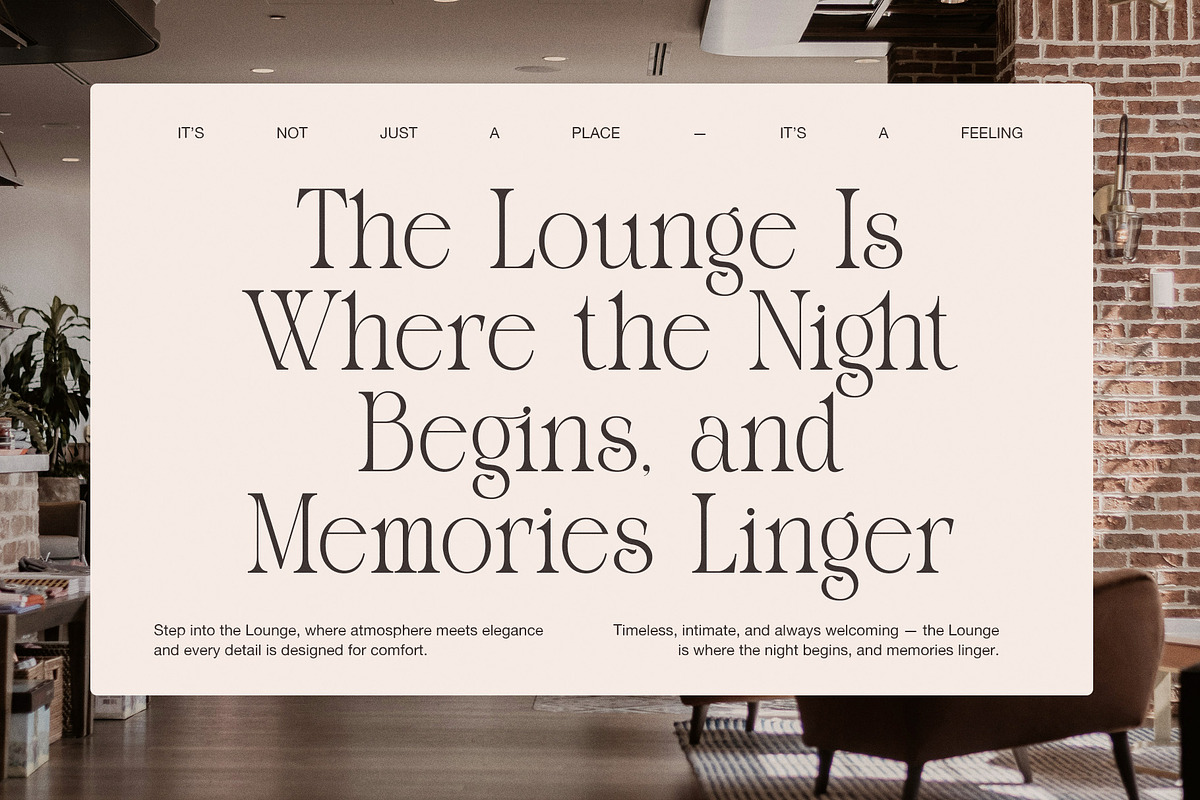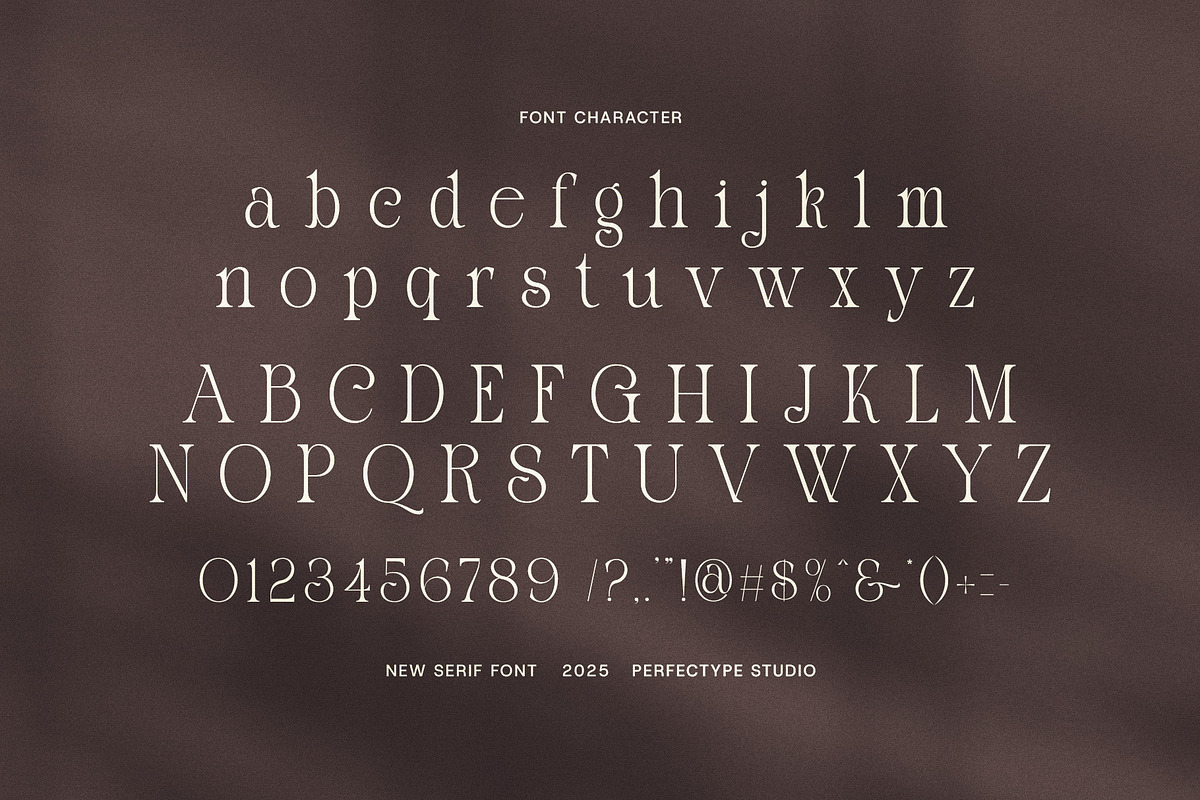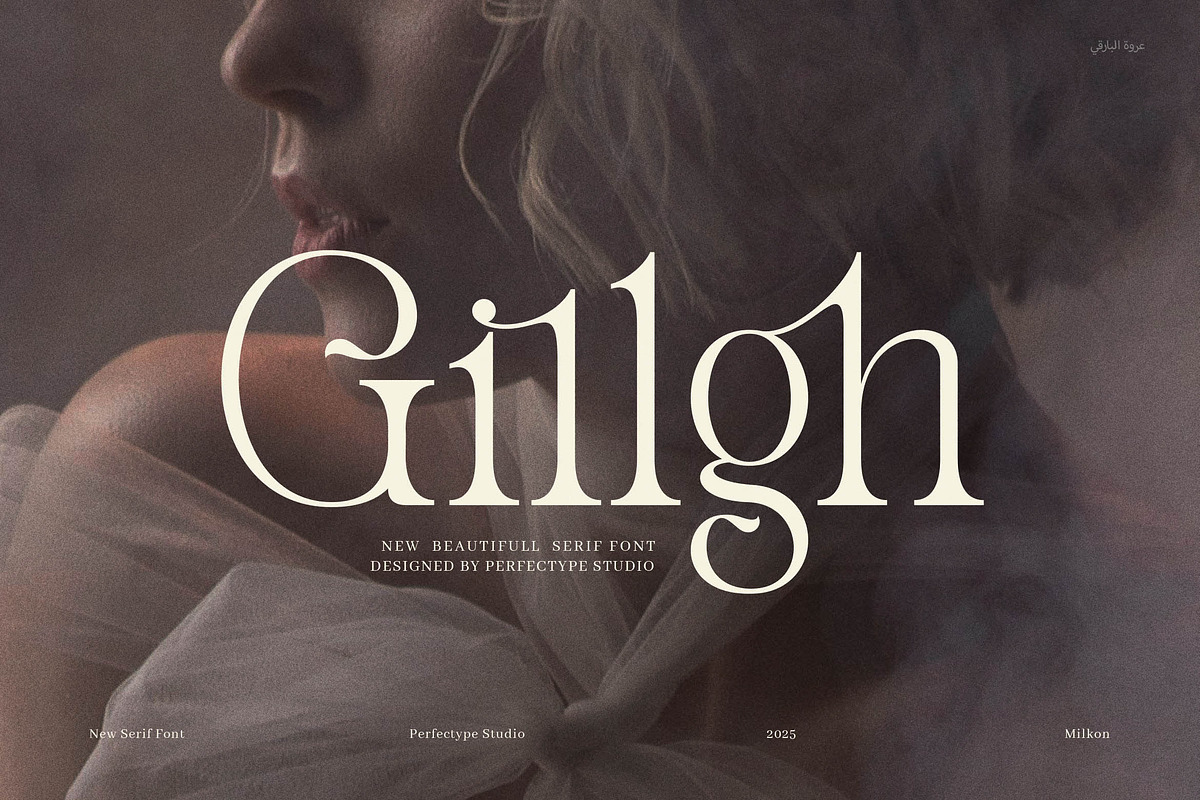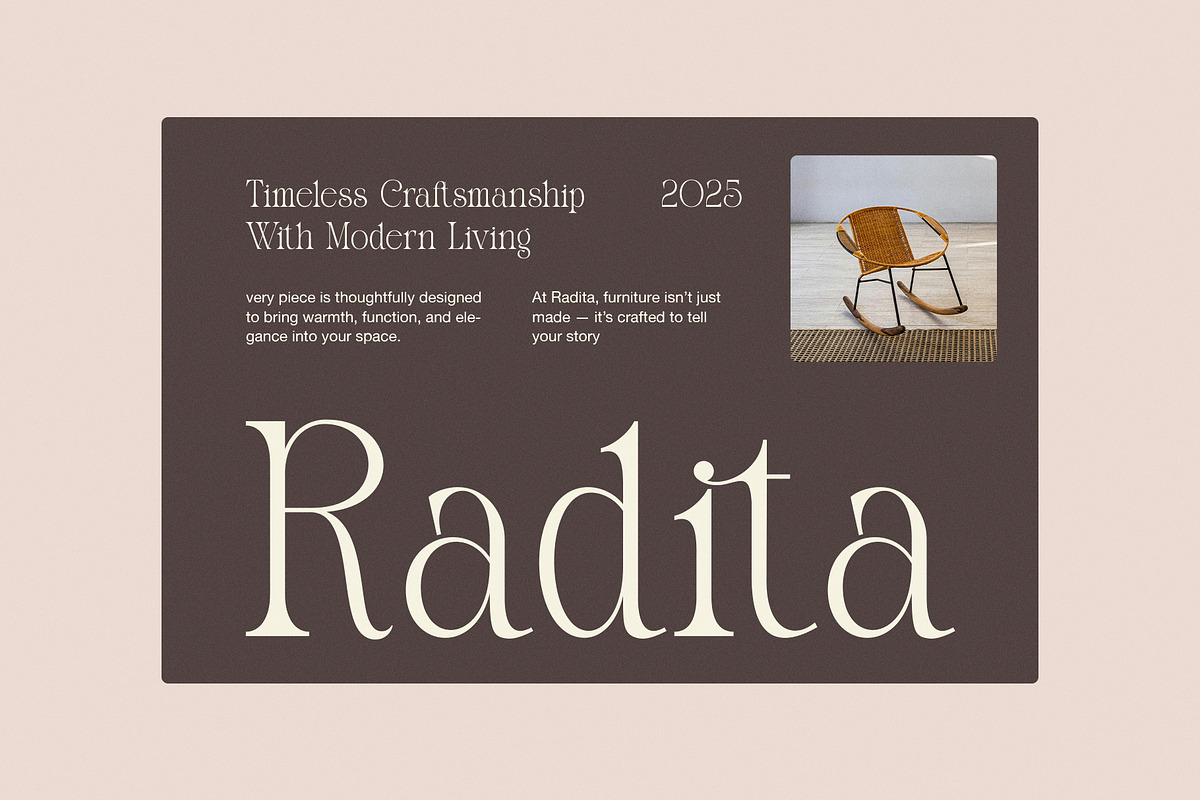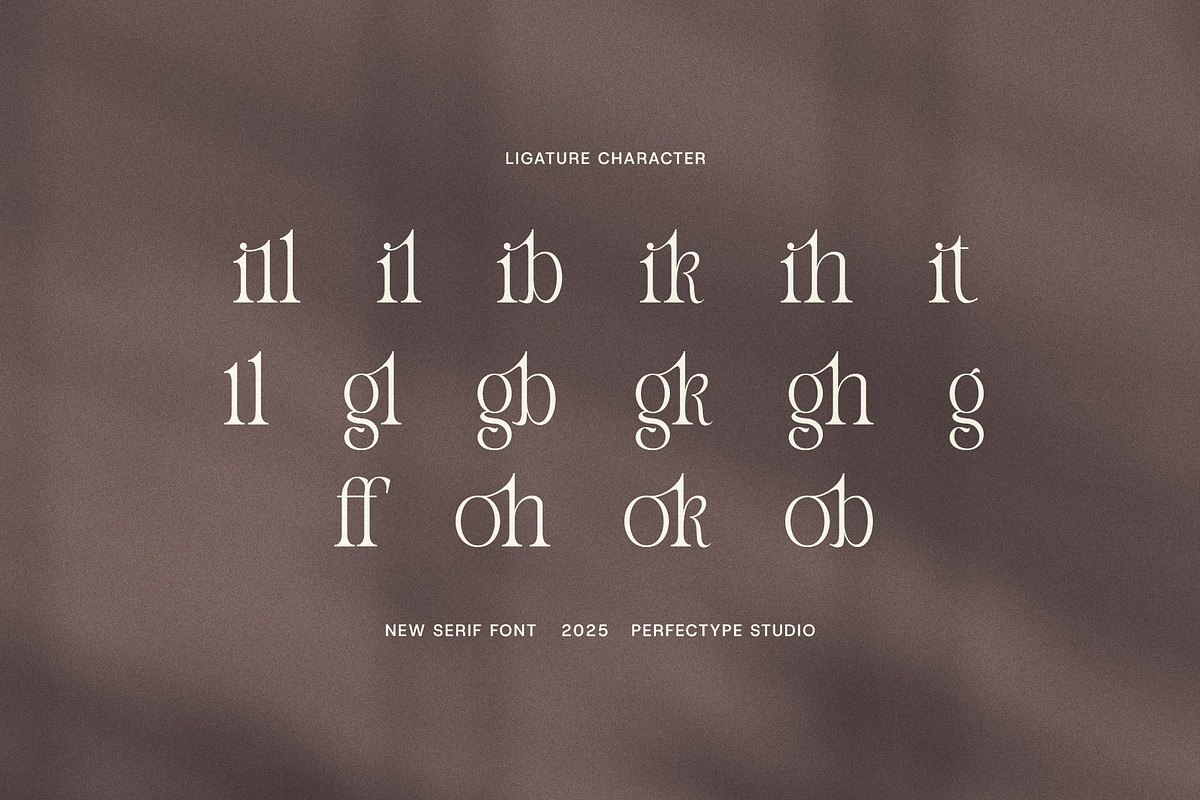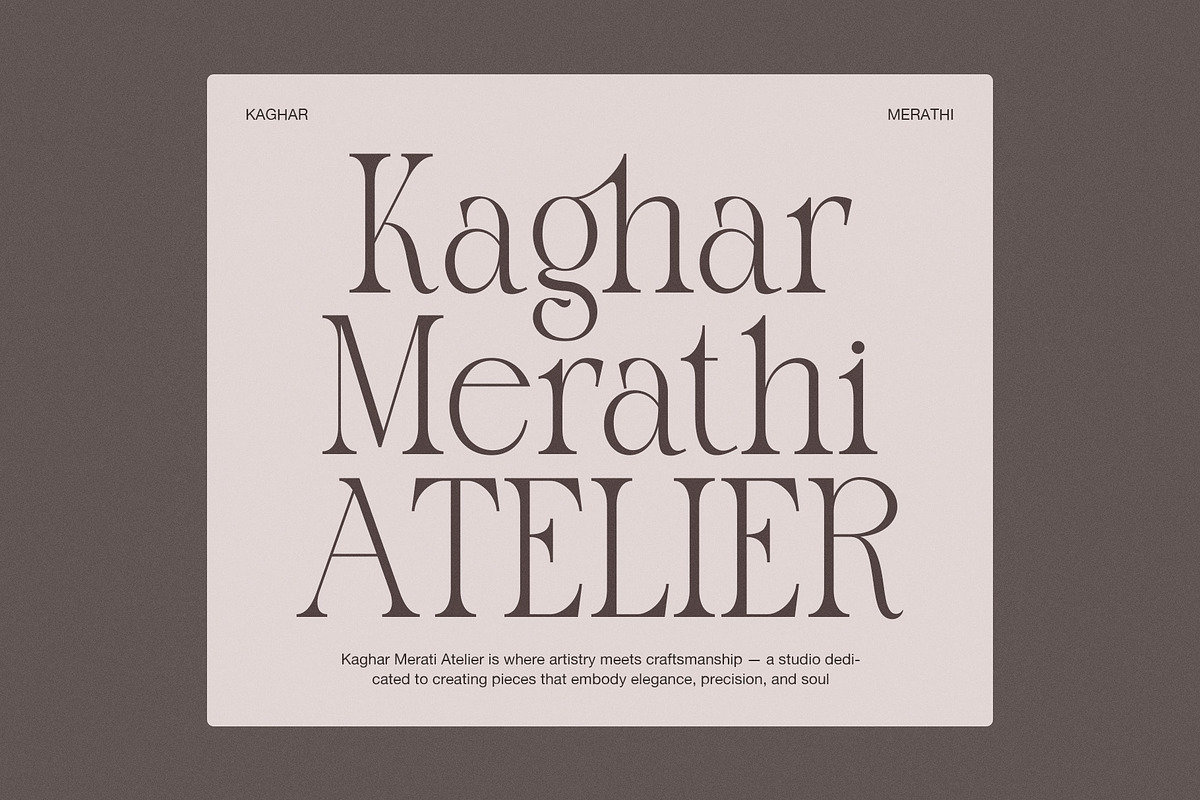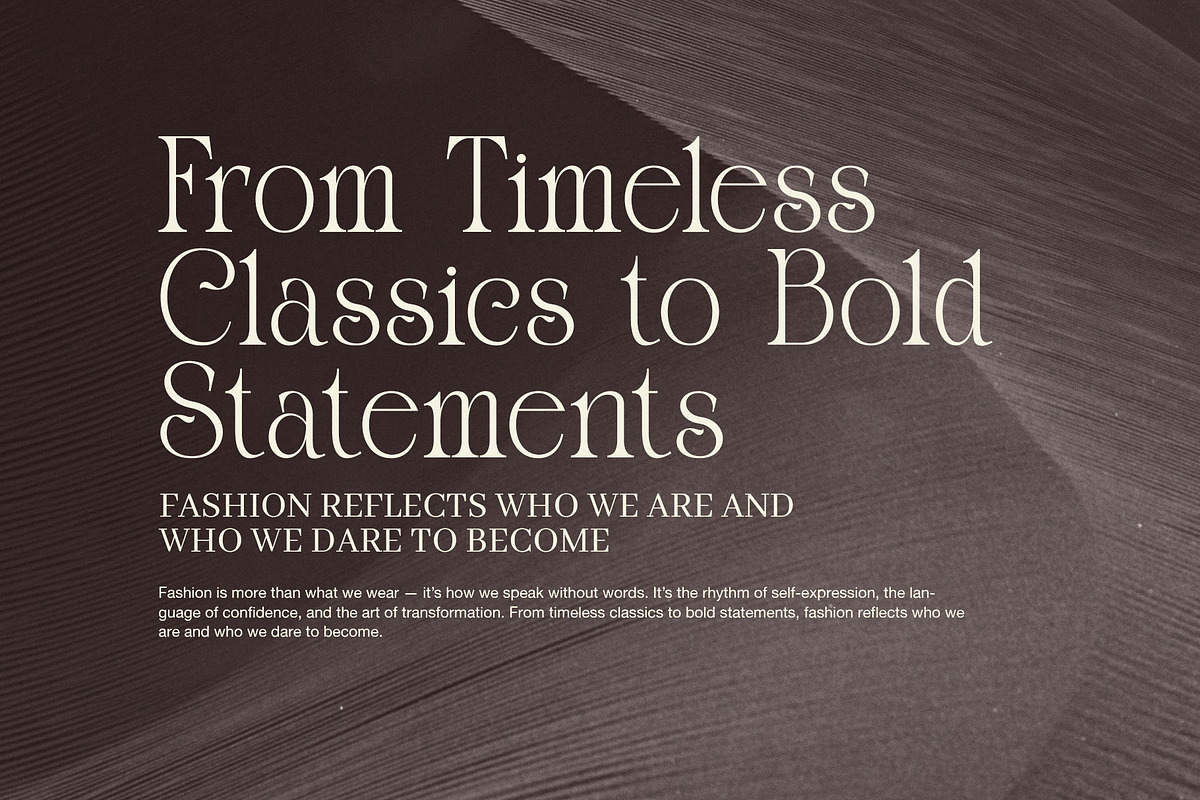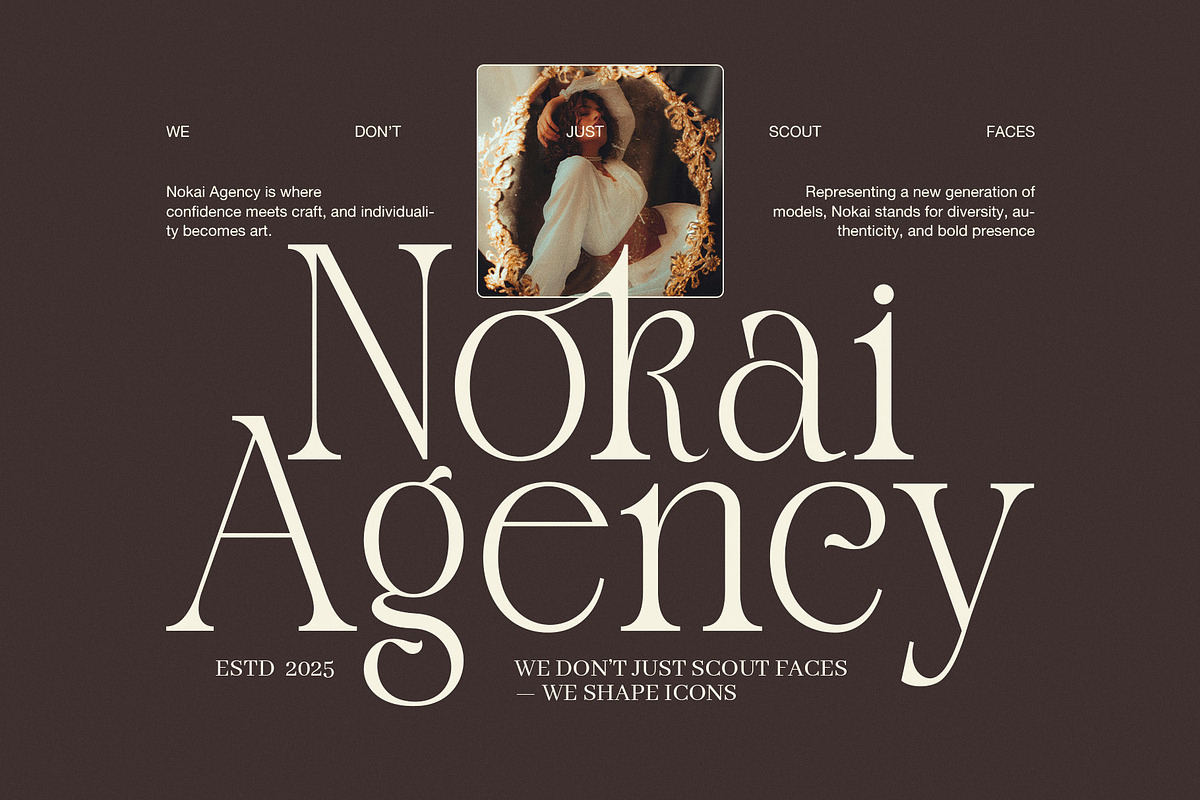
Gillgh Elegant Serif Font
Gillgh Elegant Serif Font is a modern, stylish serif font designed to add a touch of class and charm to your projects. With smooth curves, balanced shapes, and clear letters, it works well in both large headlines and small text. Moreover, it helps your designs look professional and polished every time.
One of the key features of Gillgh is its functional ligatures. These ligatures connect letters naturally, so your text flows smoothly. As a result, your designs feel more refined and attractive without losing clarity or simplicity.
Furthermore, Gillgh is very versatile. Whether you need a bold logo or clean packaging, this font fits perfectly. Because of its balanced proportions, it performs well across various uses and sizes.
Here’s why Gillgh stands out:
It’s perfect for logos and brand identity.
It shines in fashion and boutique designs.
It suits magazine layouts and editorials well.
It works great on product packaging and labels.
It’s ideal for food and lifestyle branding.
It enhances website headers and banners.
It adds elegance to wedding invitations and cards.
It fits social media posts and advertisements.
In addition, Gillgh pairs wonderfully with simple sans-serif fonts. This makes it easy to create elegant, balanced designs. Also, its modern yet timeless look helps your brand feel fresh, yet lasting.
If you want a font that is both beautiful and easy to use, Gillgh Elegant Serif Font is an excellent choice. It suits designers, entrepreneurs, and creatives who want to bring a sharp, polished look to their work.
To sum up, choose Gillgh to add style, elegance, and professionalism to your next design project.